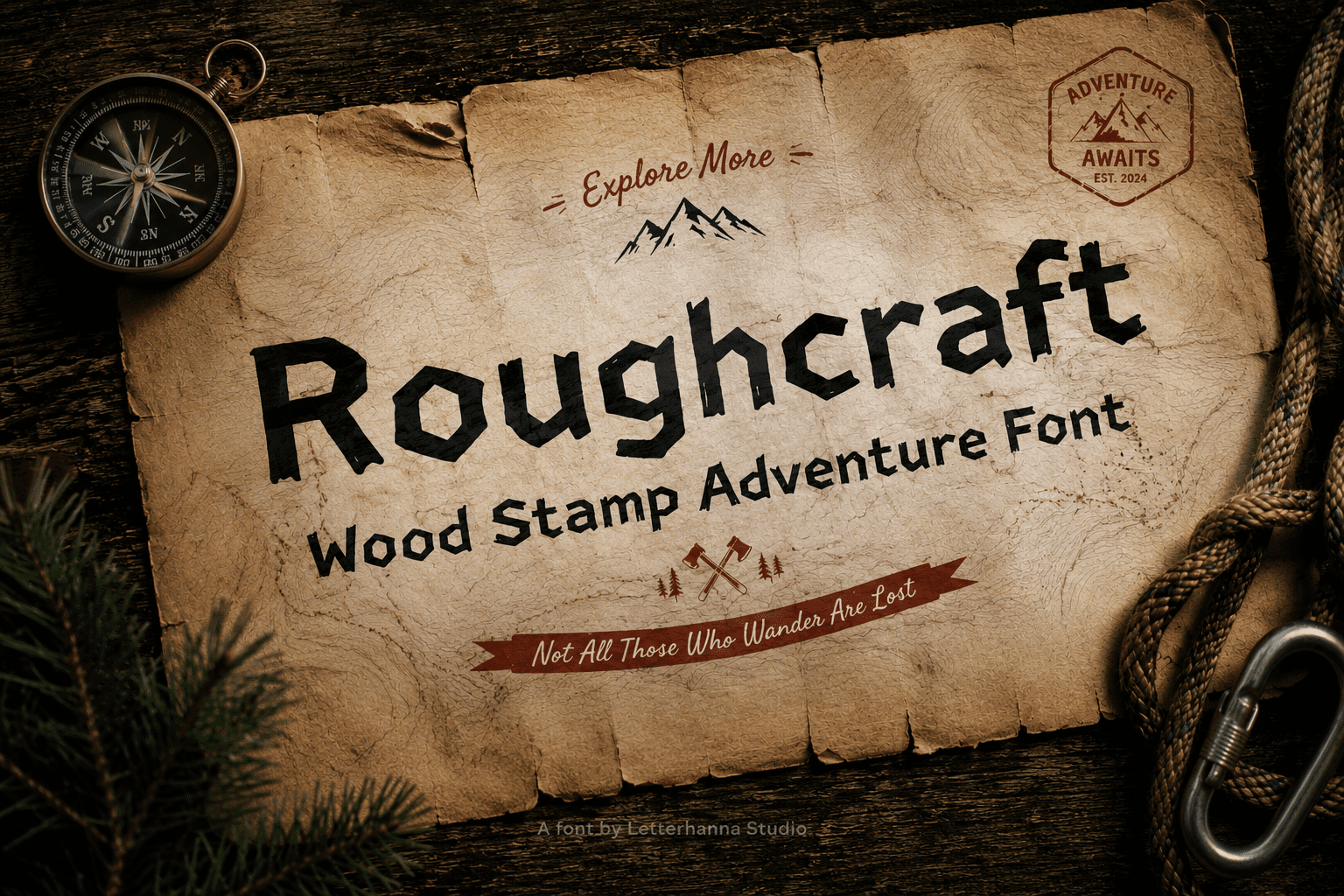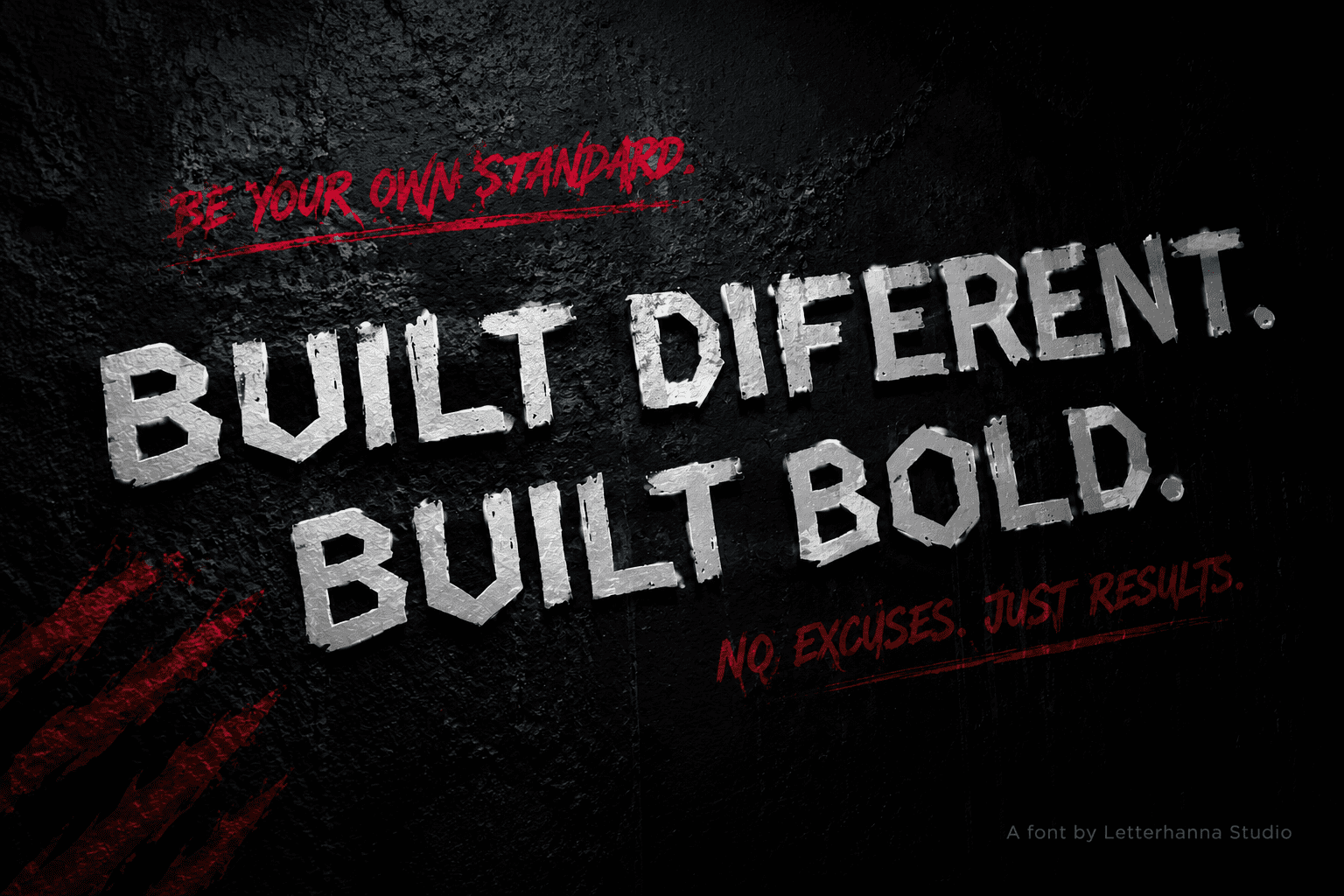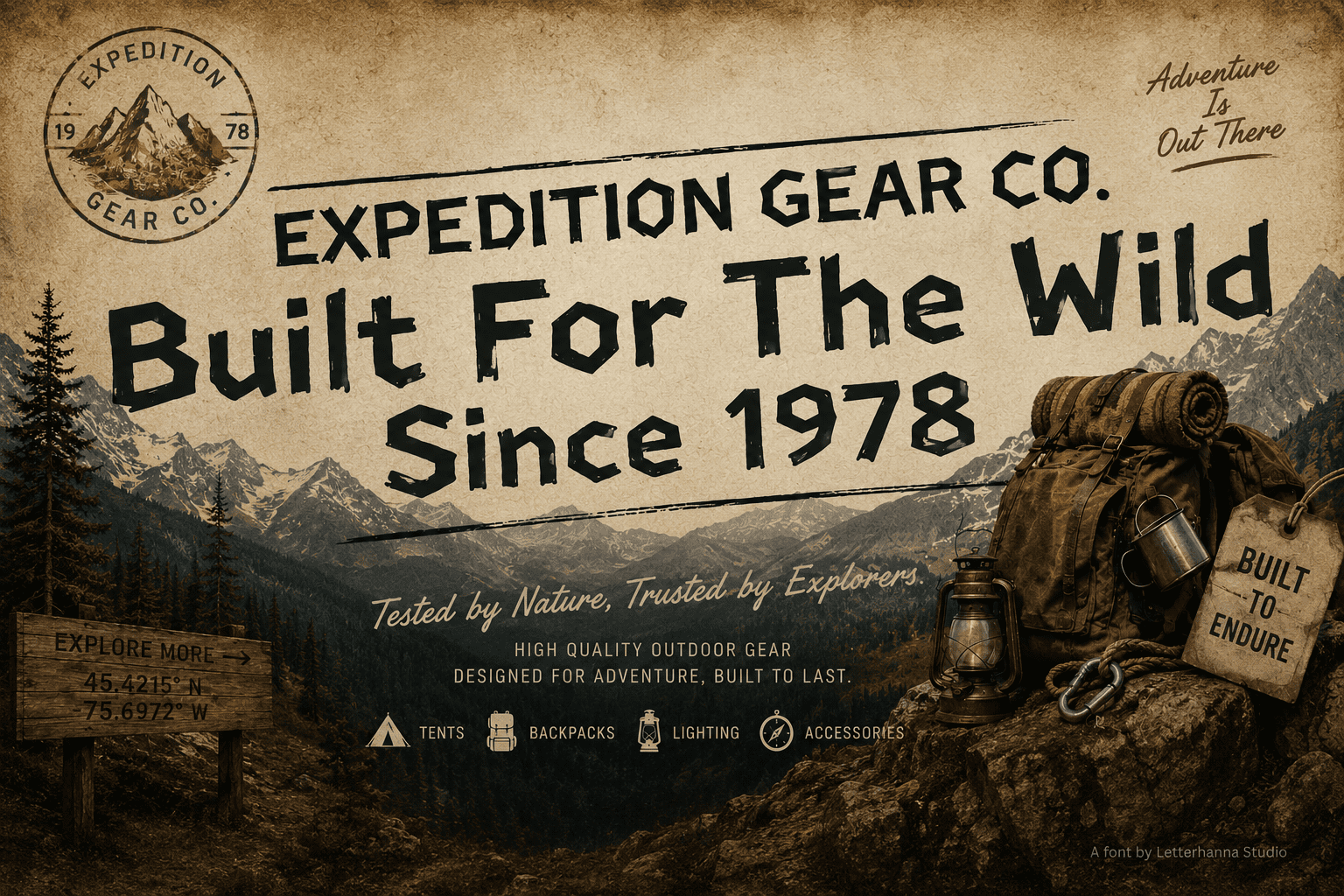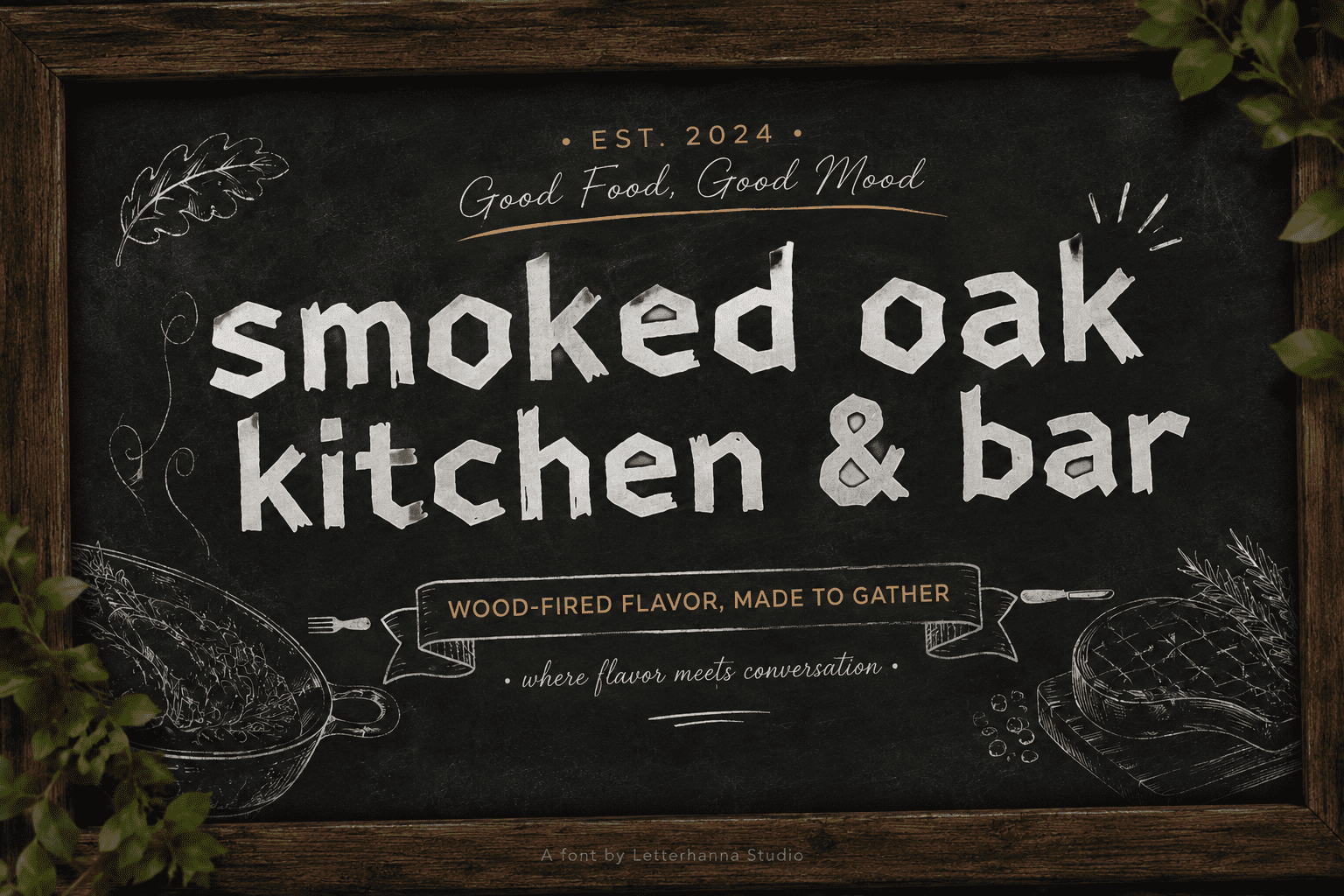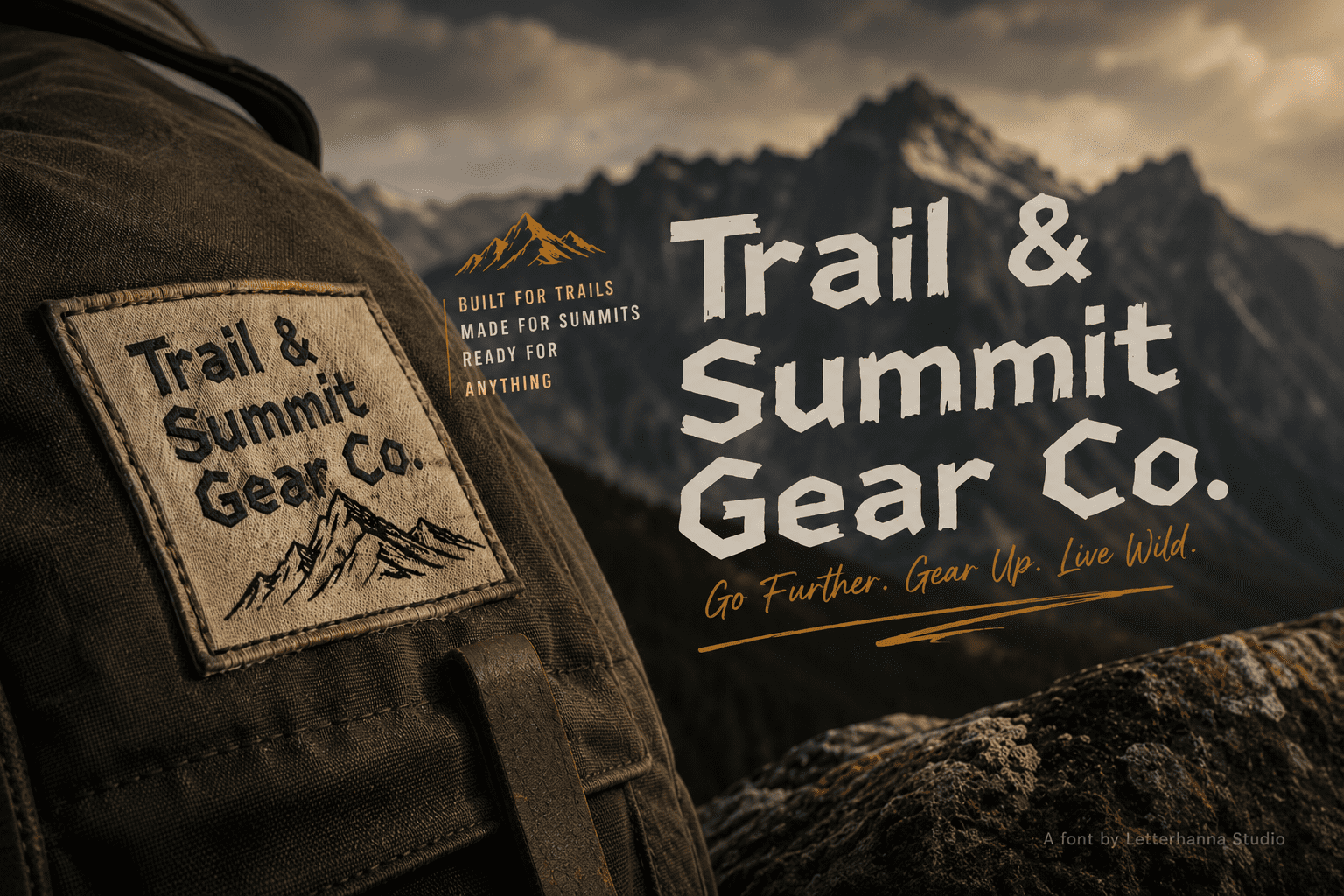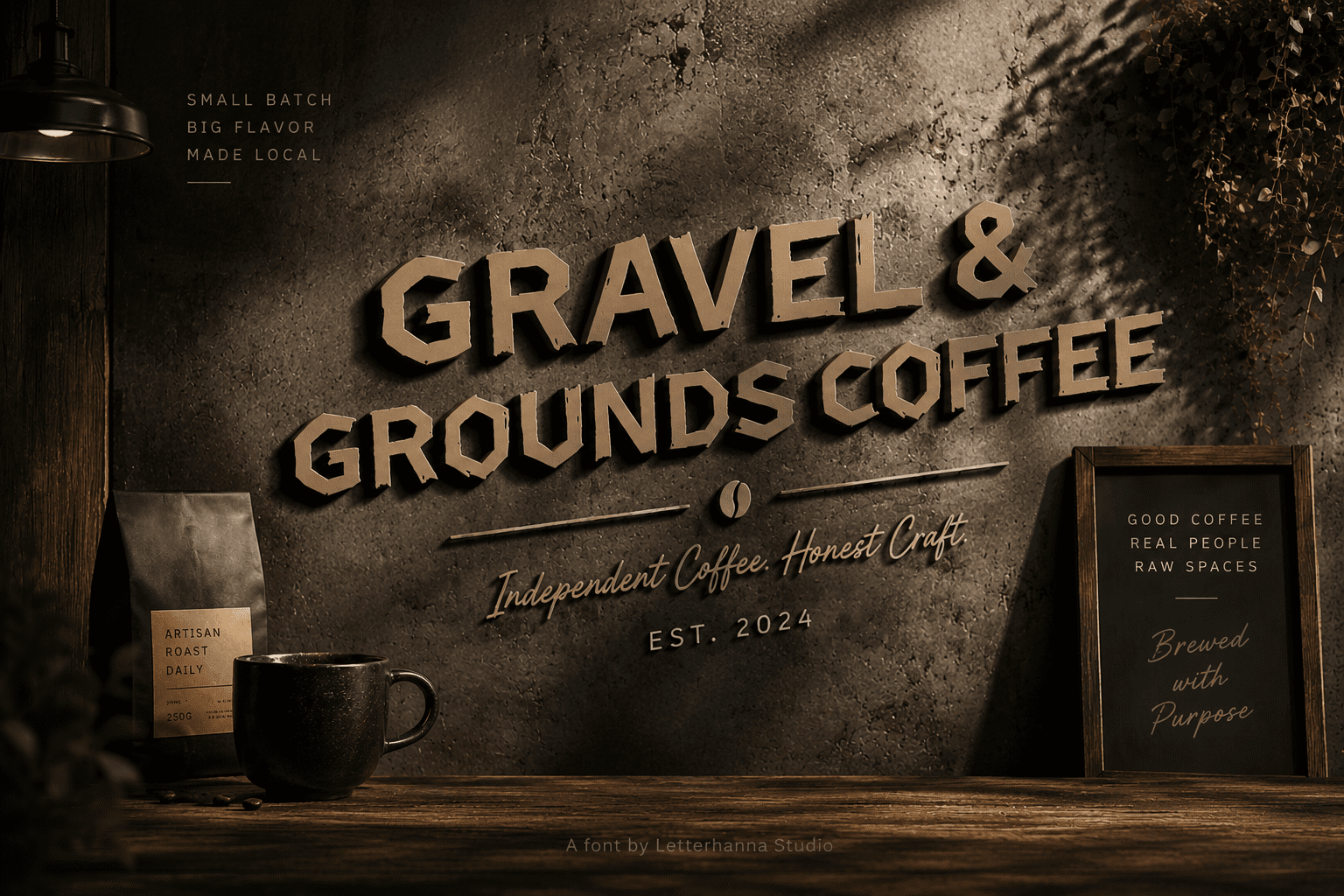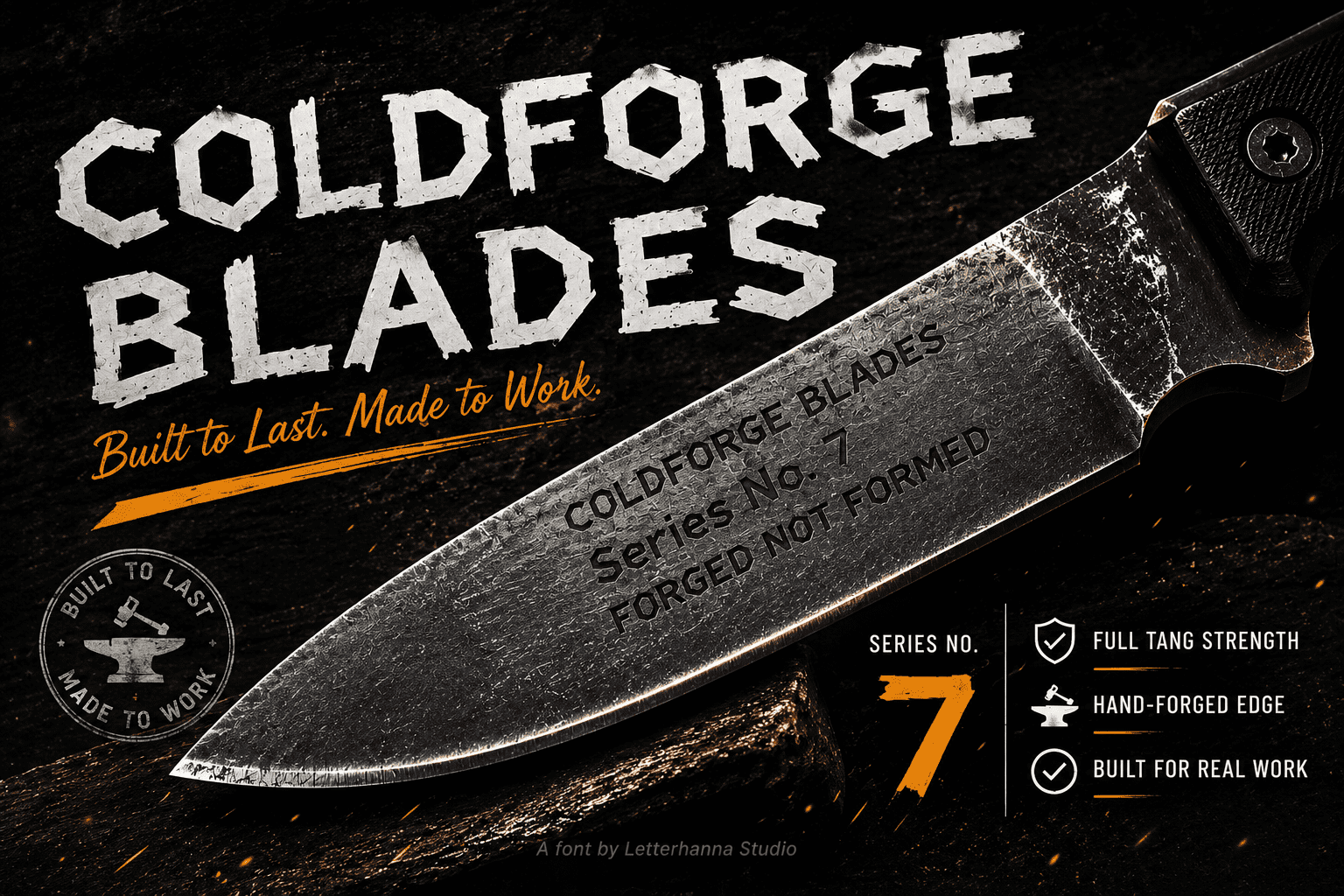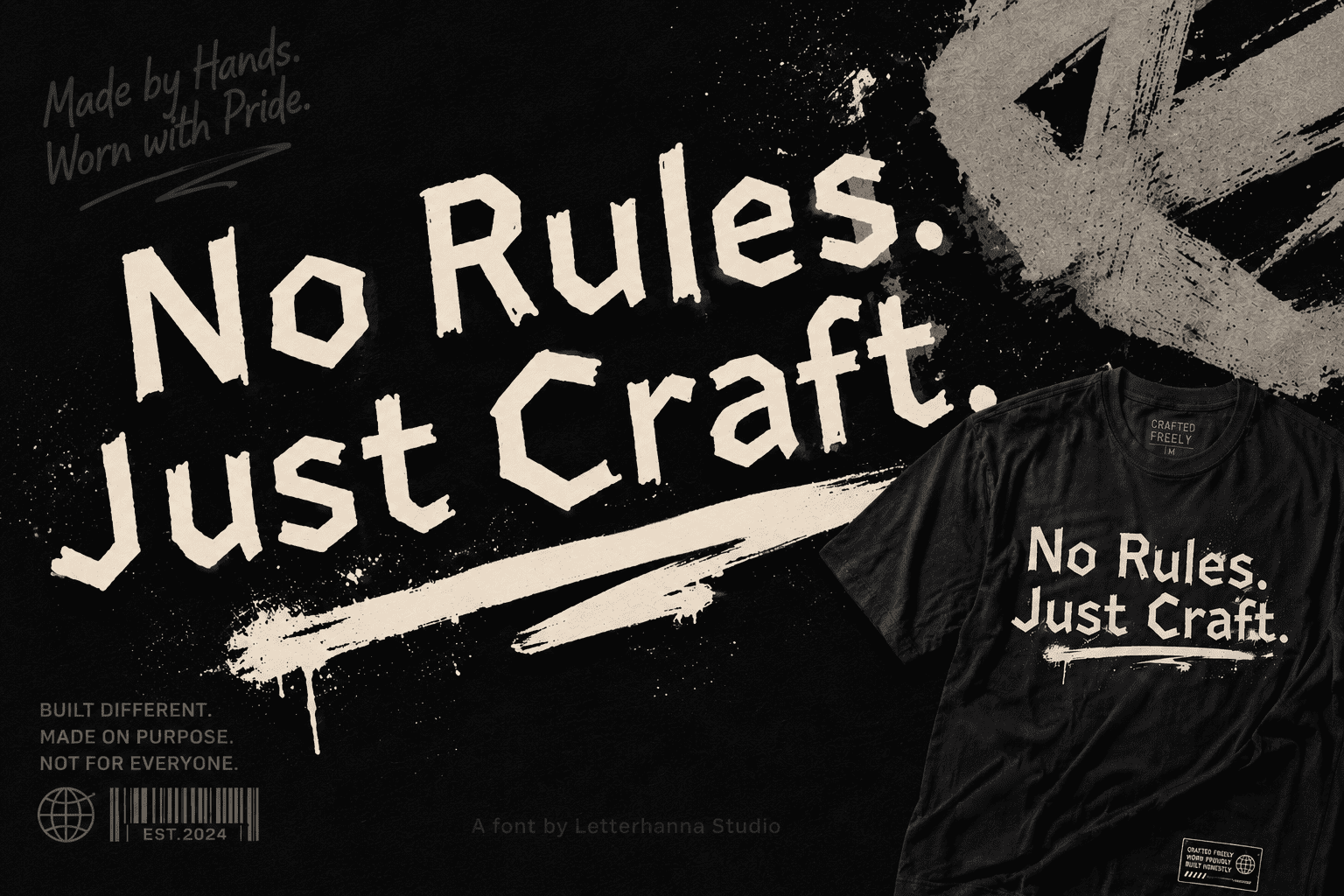
There’s a generation of makers, builders, and creators who are tired of clean. Tired of perfect. Tired of fonts that look like they came from a corporate slide deck. They want type that feels earned.
Roughcraft was made for them.
This bold display font channels the raw energy of hand-lettered signage, workshop stamps, and carved wooden titles. Each letterform is deliberately rough — thick strokes interrupted by natural imperfections, edges that look chiseled rather than drawn, a weight that commands the eye without shouting. Uppercase letters stand sturdy like wooden beams. The overall texture feels tactile, like you could run your finger across the screen and feel the grain.
The vibe is equal parts rugged and creative. It fits the craft beer brewer as naturally as it fits the independent streetwear label. It belongs on a hiking trail poster just as much as a vintage record cover. Roughcraft doesn’t pick a lane — it owns the whole road.
Designers love it for logos, packaging, editorial headers, social media graphics, and merchandise. It pairs beautifully with clean serif or minimal sans-serif body fonts, letting the contrast do the heavy lifting.